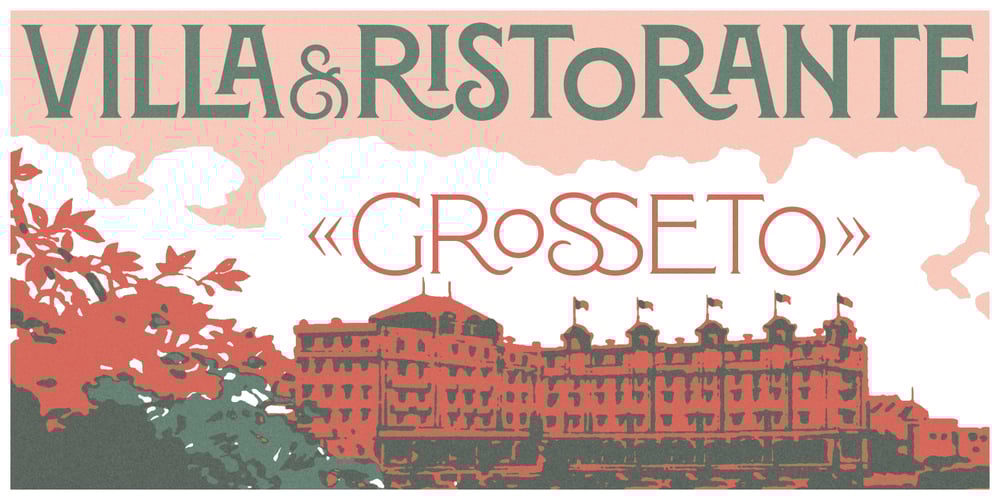
Montecatini Pro Font Family was designed by Andy Anzollitto, Louise Fili, Nicholas Misani and published by Louise Fili Ltd. Montecatini Pro contains 24 styles and family package options. Montecatini takes its cues from the elegant Stile Liberty travel posters of Italy in the early 1900s. In its successful first release by Louise Fili Ltd in 2017, the typeface introduced distinctive ligatures typical of the time when Art Nouveau emerged as a worldwide phenomenon. Now Montecatini has been expanded into 24 alluring styles, spanning 6 weights and 4 widths. With the addition of these new styles, Montecatini has a dynamic capacity for comprehensive use and pairing. Everything looks better in Montecatini, from book jackets to monograms to packaging and logos—and the wide selection of ligatures, weights, and widths makes copyfitting a delight. Montecatini Pro’s ligatures are setup as contextual alternates. If you would like to try out Montecatini Pro’s ligatures or learn more about the font, please visit: https://www.louisefili.com/montecatini-pro